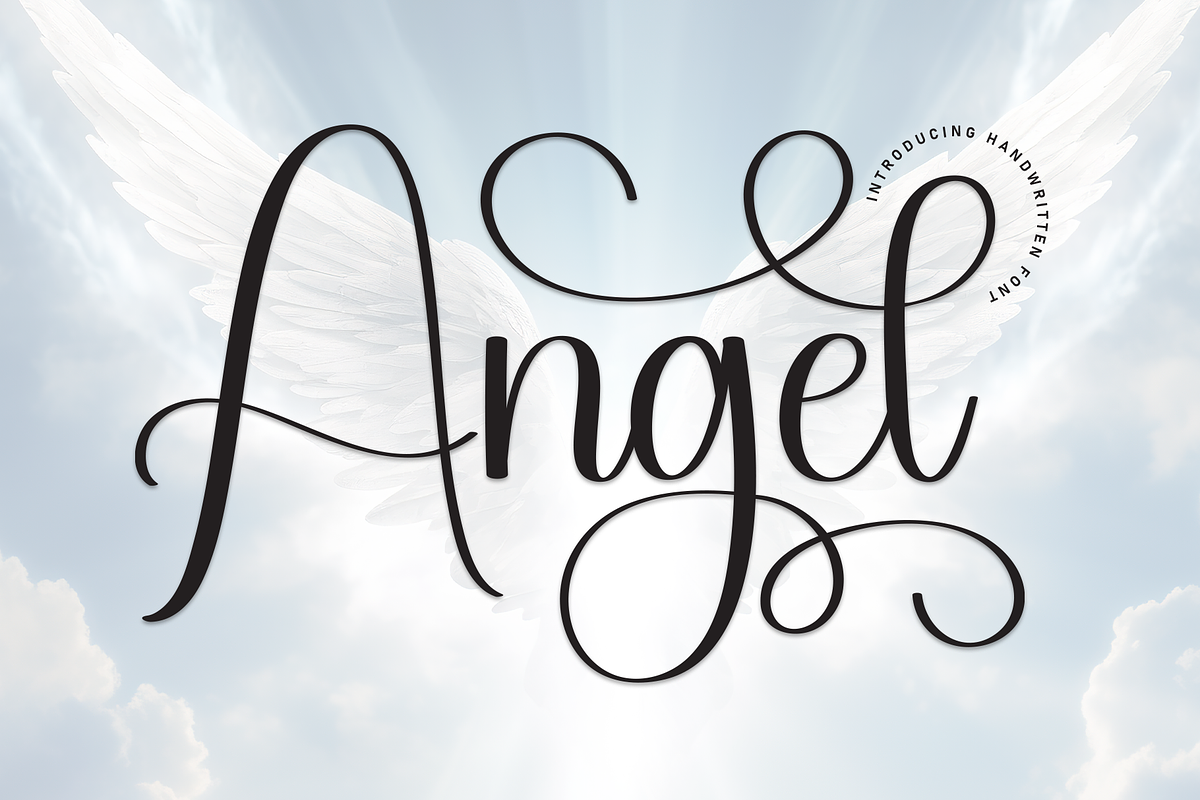
Angel | Script Font Free Download
Angel | Script Font Free Download is a beautiful, elegant script typeface designed to add sophistication and charm to your designs. With its smooth, flowing letterforms and graceful curves, this font is perfect for wedding invitations, branding, greeting cards, logos, and any project that requires a refined, handwritten touch. It captures the essence of elegance and personalization.
Using the Angel | Script Font Free Download adds a delicate, timeless vibe to your typography. Whether you're designing a luxurious brand identity, crafting an elegant invitation, or creating a heartfelt greeting card, this font brings a polished and refined touch to your work.